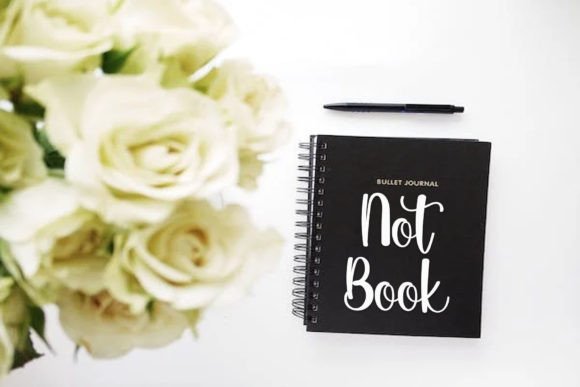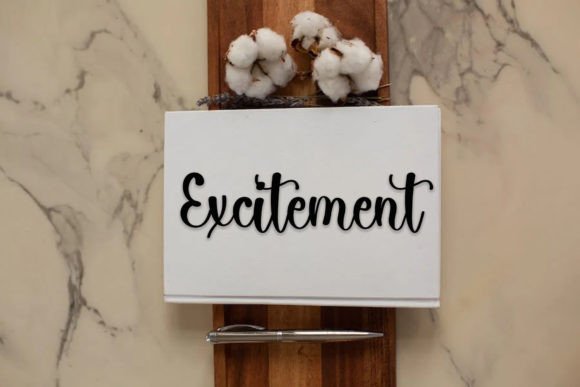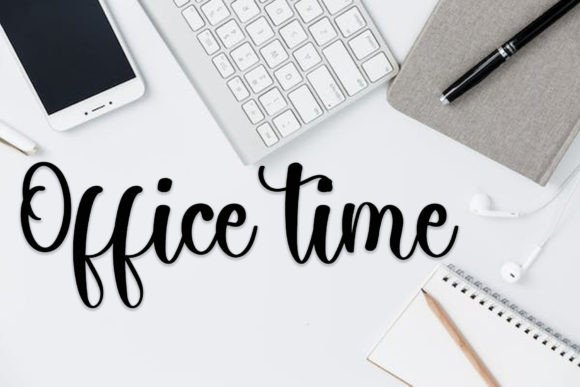
Hello Baby Font
The Hello Baby Font is a delightful and playful typeface that captures the joy and innocence of childhood. Its whimsical letterforms and friendly curves evoke a sense of warmth and happiness. Perfect for baby shower invitations, children’s books, nursery decor, and more, Hello Baby Font brings a cheerful and enchanting touch to your designs.